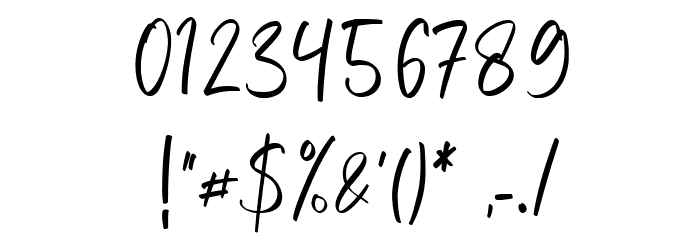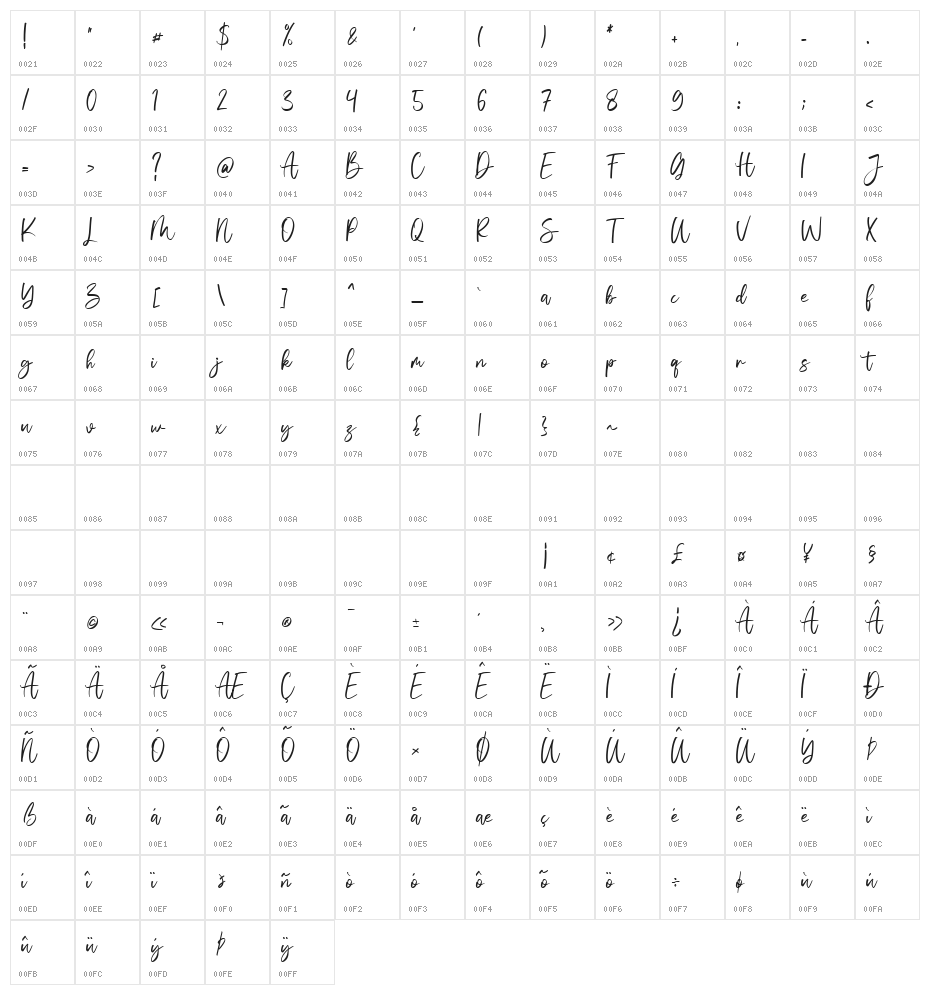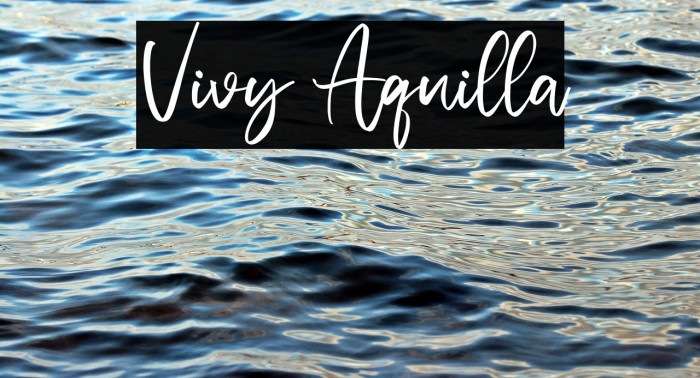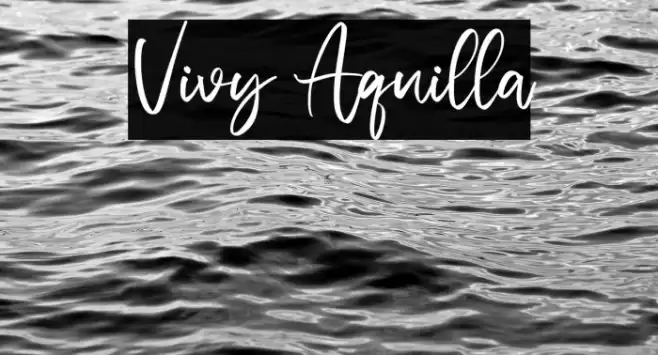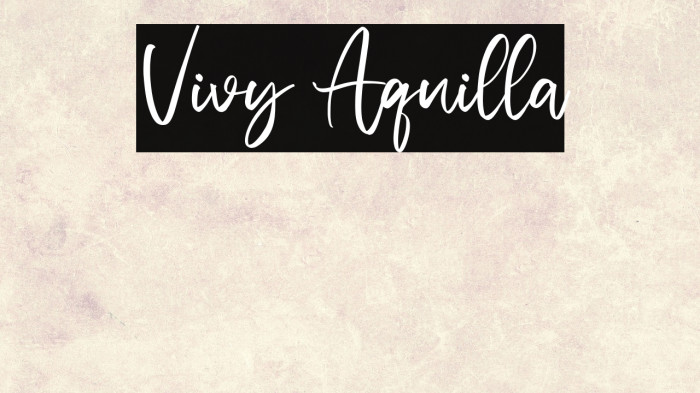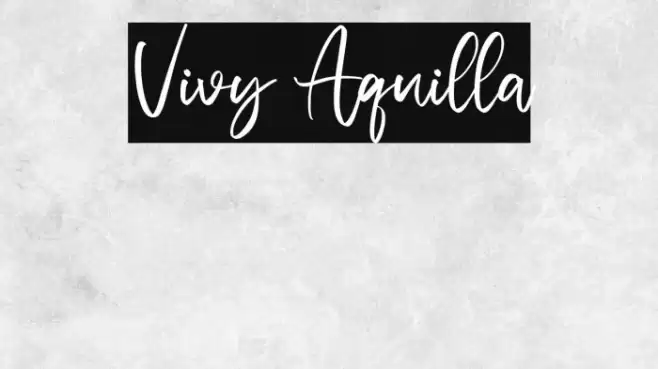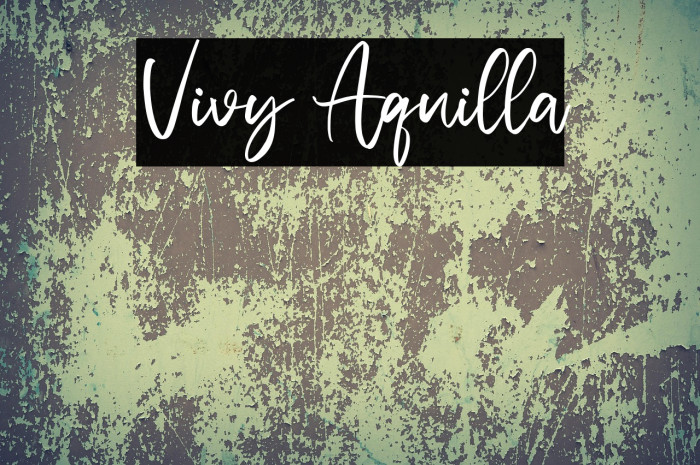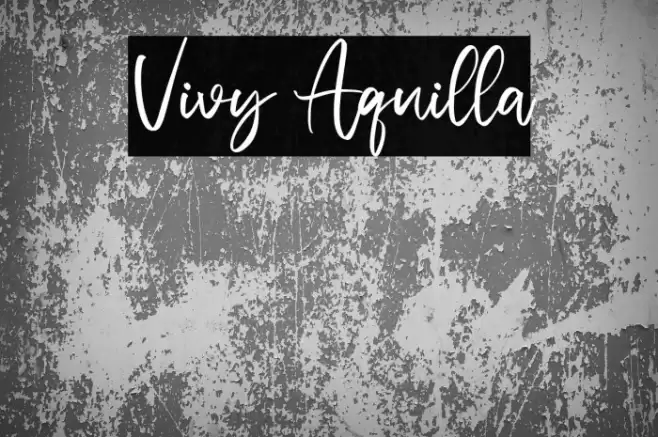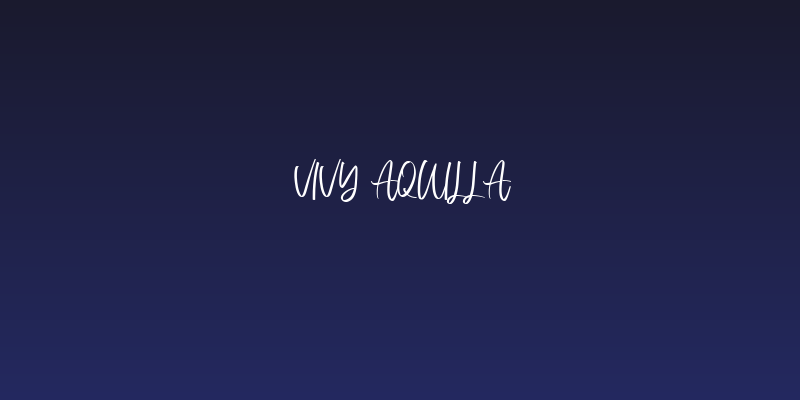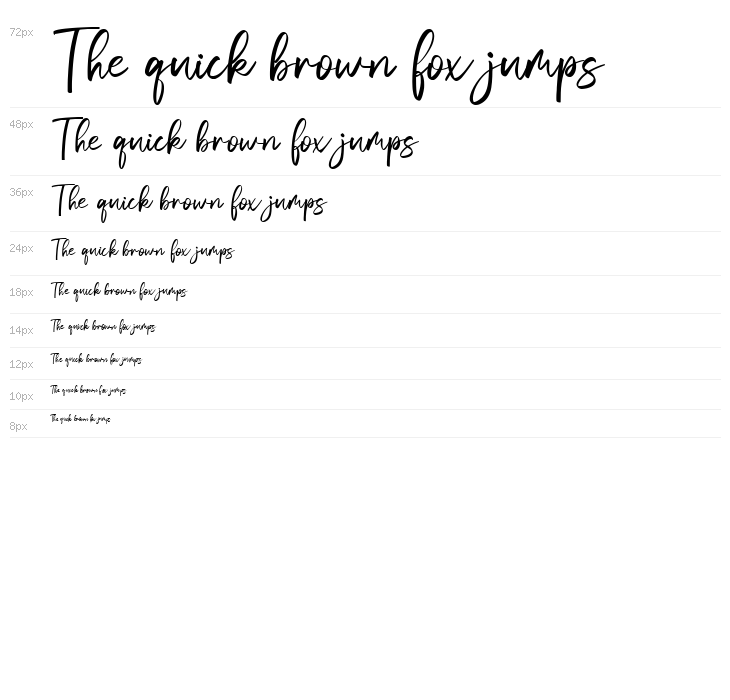
Vivy Aquilla Font
Vivy Aquilla Description
This font features a lively and flowing script style, characterized by its elegant, cursive letterforms. The uppercase letters exhibit a graceful, sweeping motion with varying stroke widths, giving a sense of movement and fluidity. The lowercase letters maintain a consistent style, with smooth curves and a slightly informal touch. The numerals are designed to match the overall aesthetic, with a playful yet sophisticated appearance. Special characters are seamlessly integrated, maintaining the font's cohesive look. This font is perfect for projects that require a personal, handwritten feel.